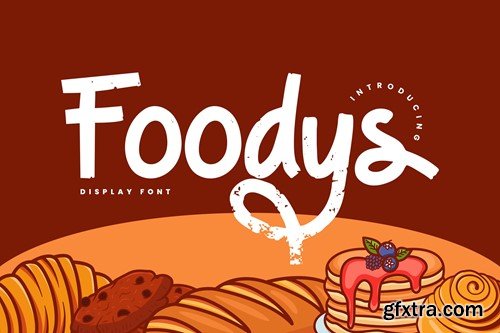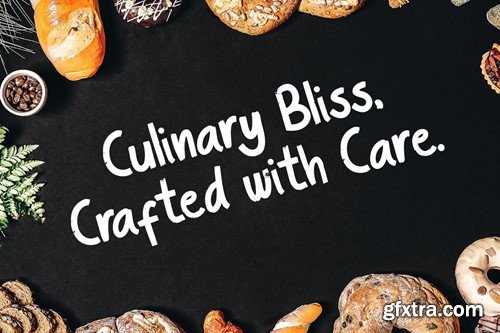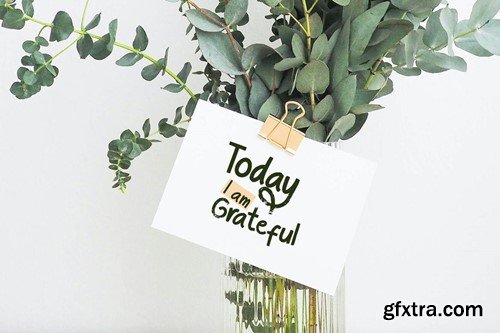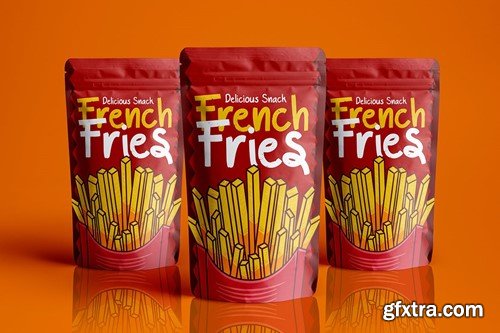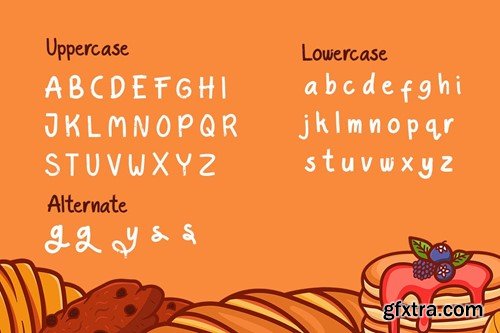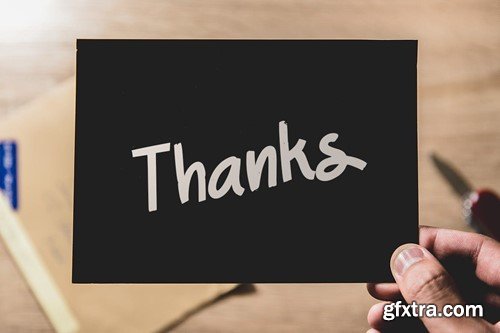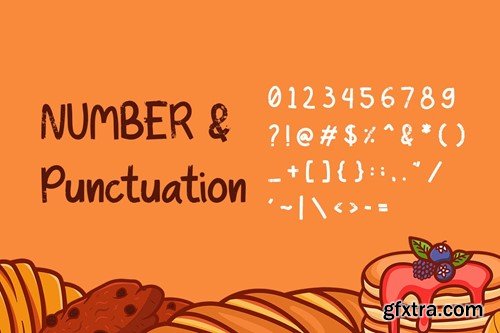
Foodys - Food Display Font
Foodys - Food Display Font is an awesome with modern cutouts, and a dynamic slant. Ideal for Poster titles, menu flyer, Packaging, Logo and monograms or other modern dynamic text. Foodys compares favorably with legibility and size, creating the effect of power. Designed as a fast and dynamic font, but with a slightly different font design, check it out and grab it right away. **Download Foodys ** for your next project today. Featured: File Included : Thank you for checking and I hope you enjoy it. Always put your heart into it and don’t worry about trying. I hope you have as much fun using it as I did making it